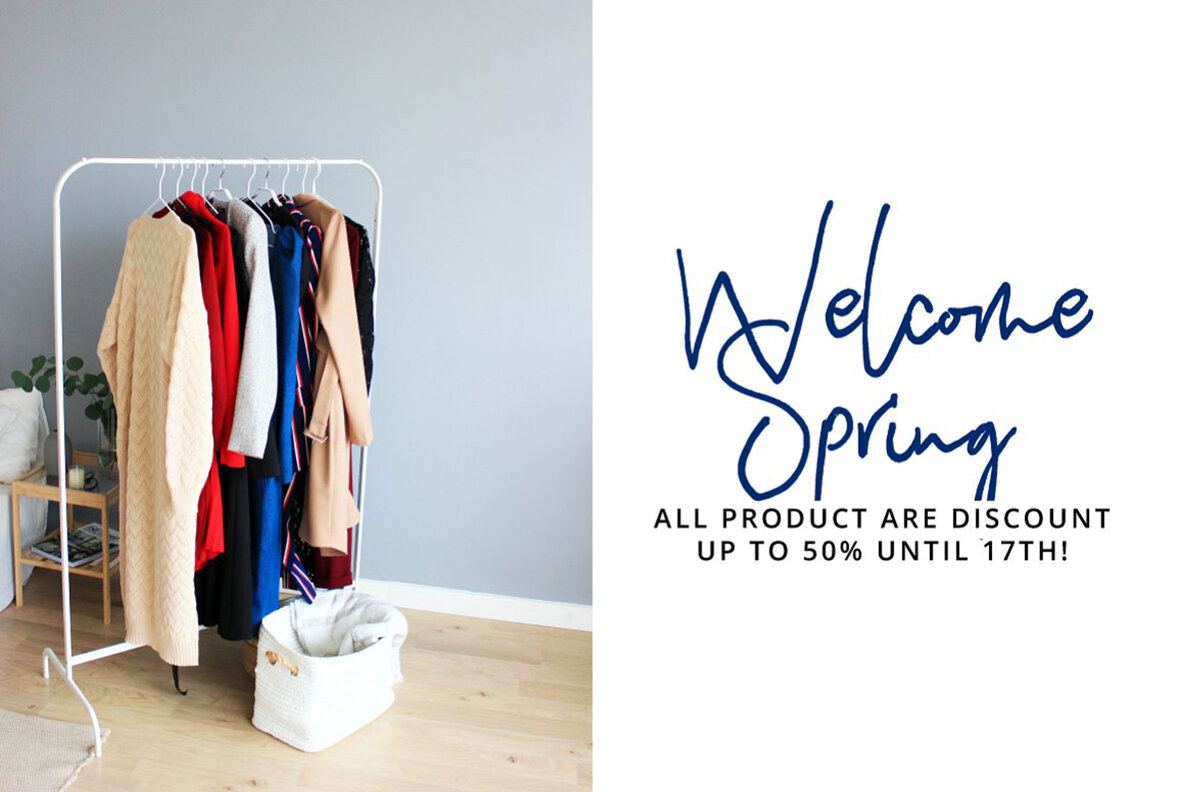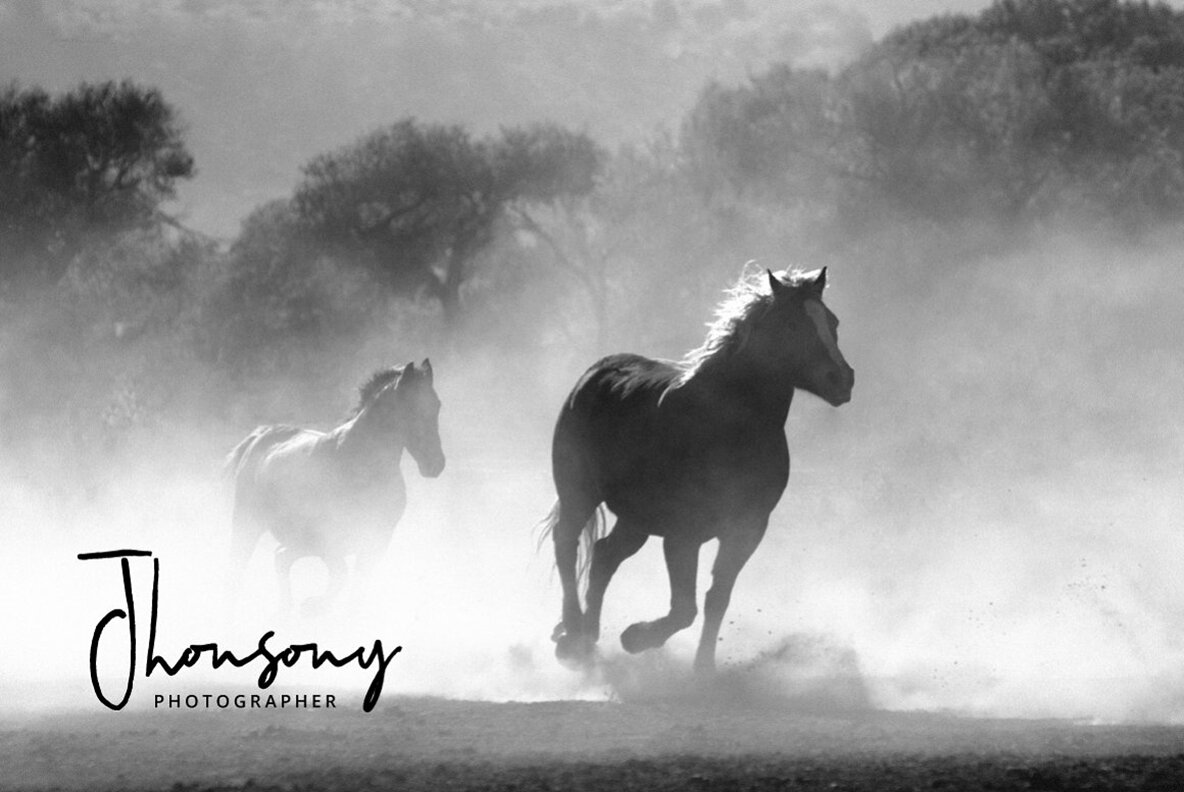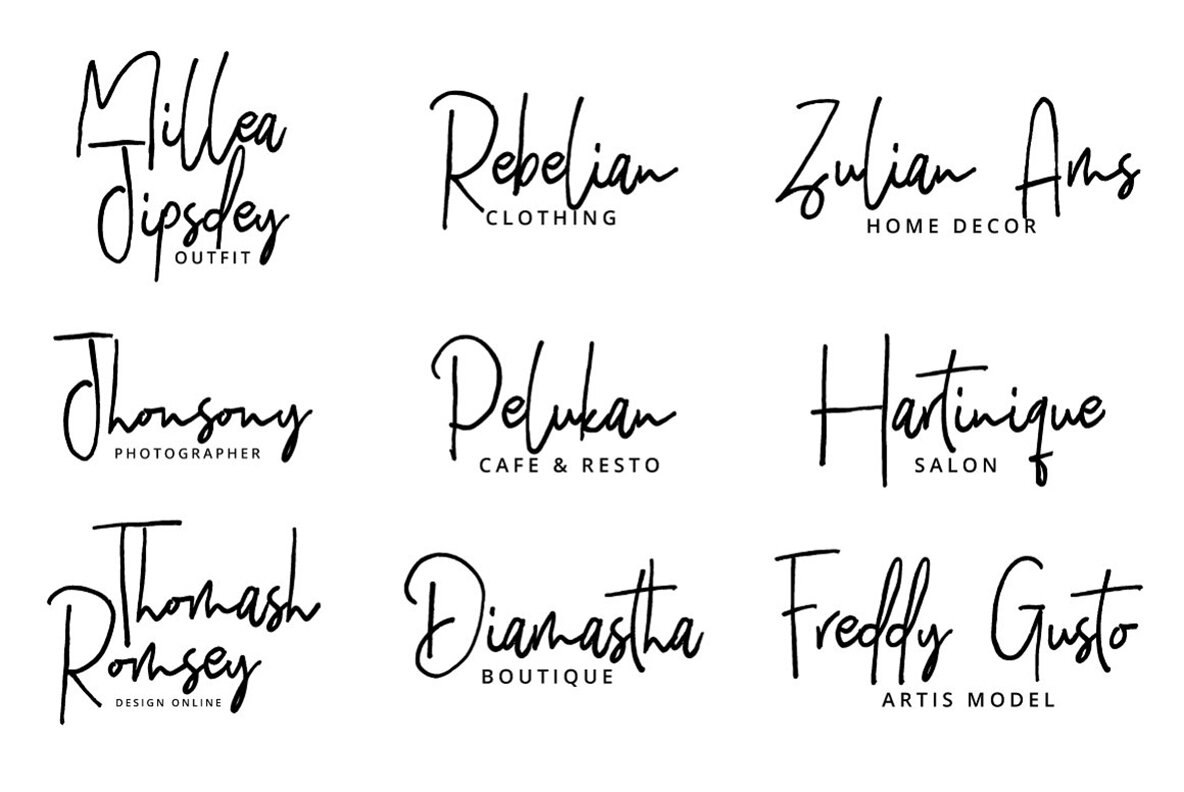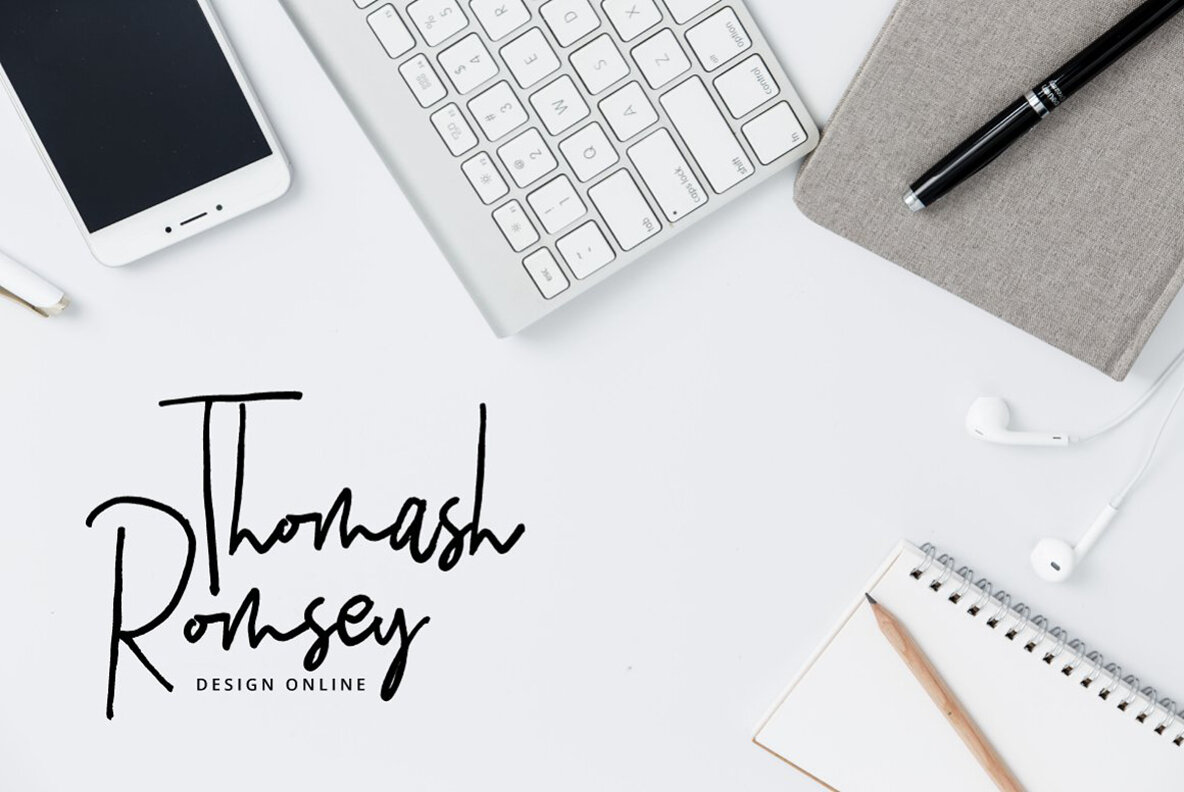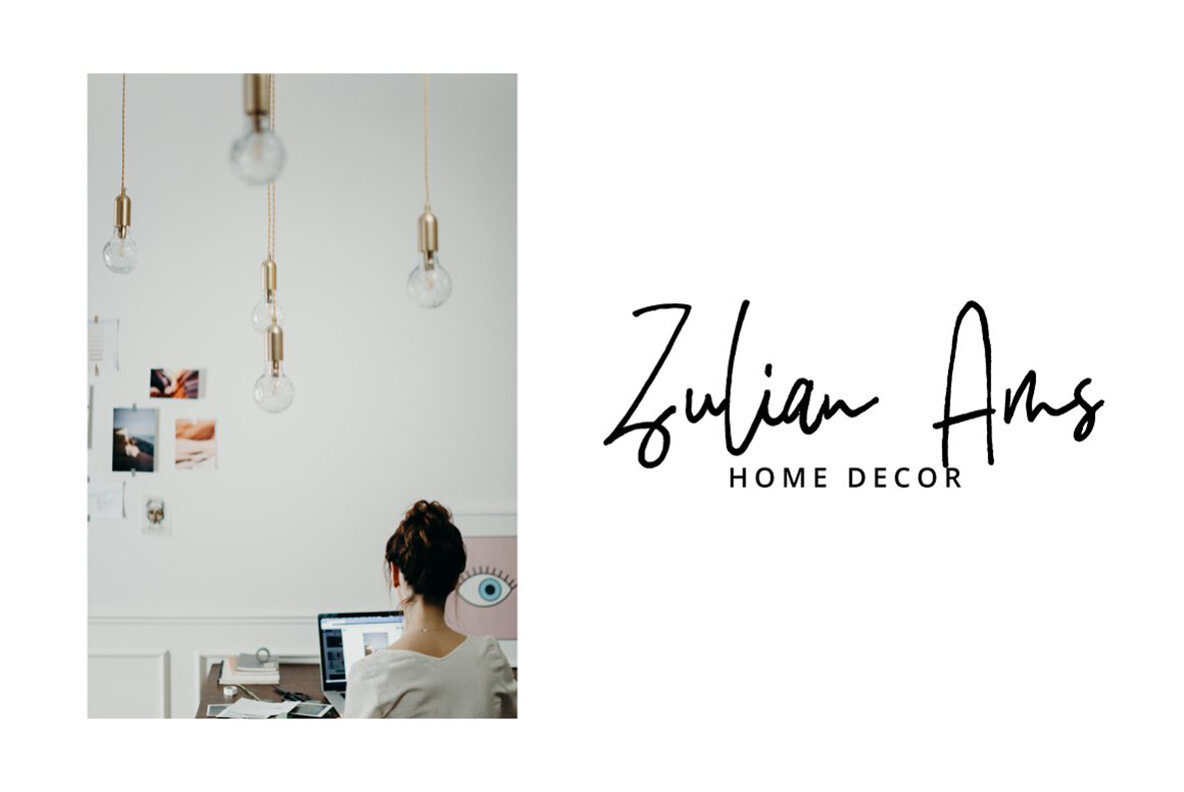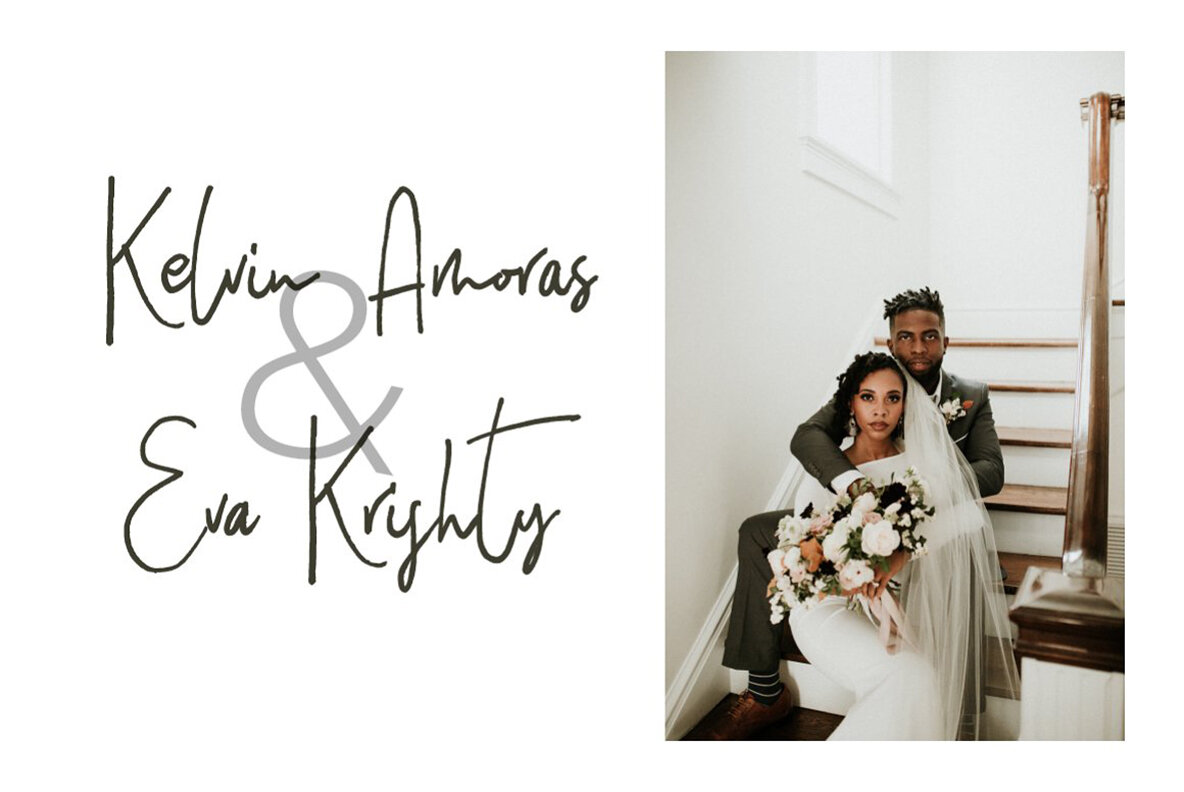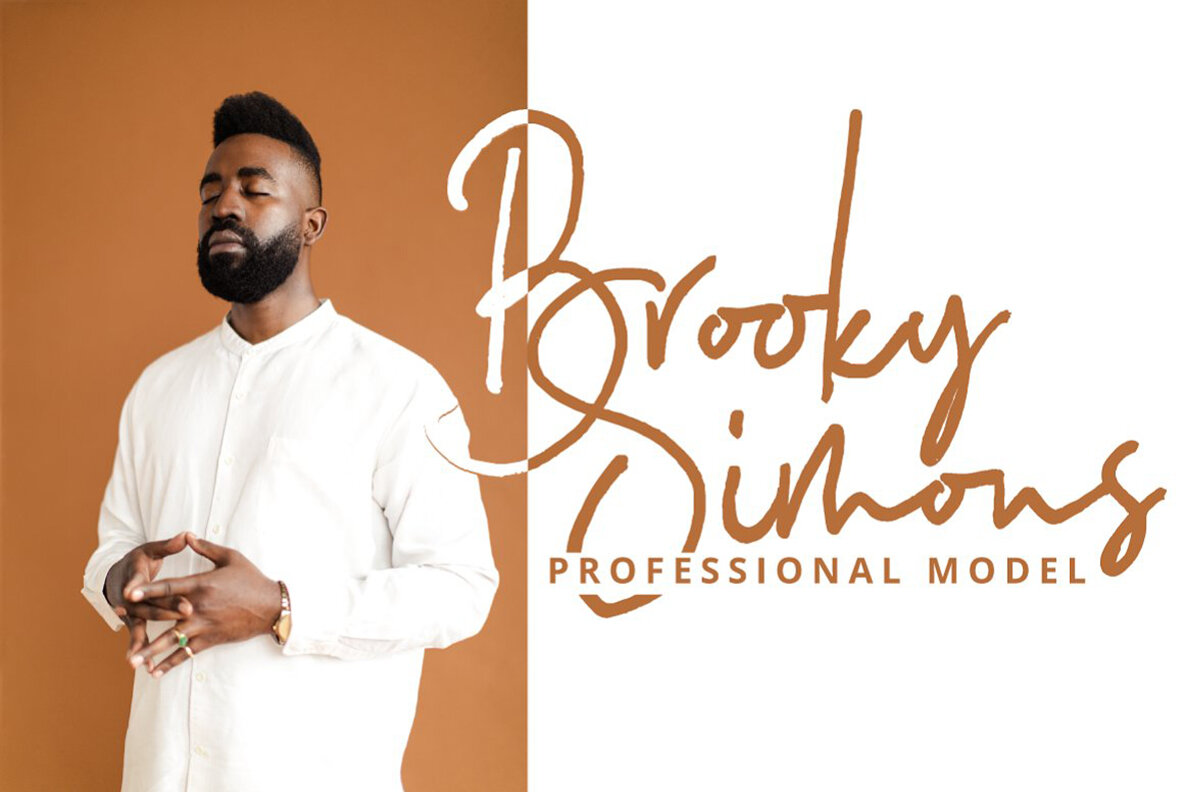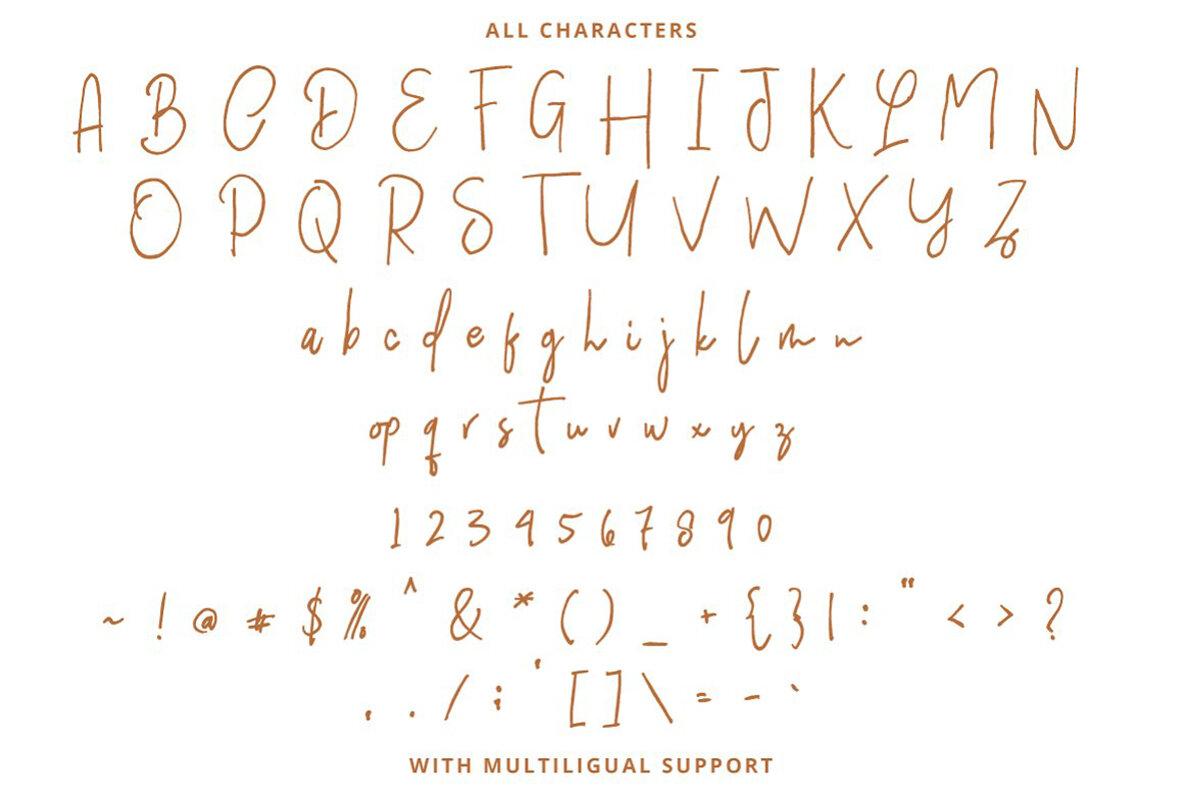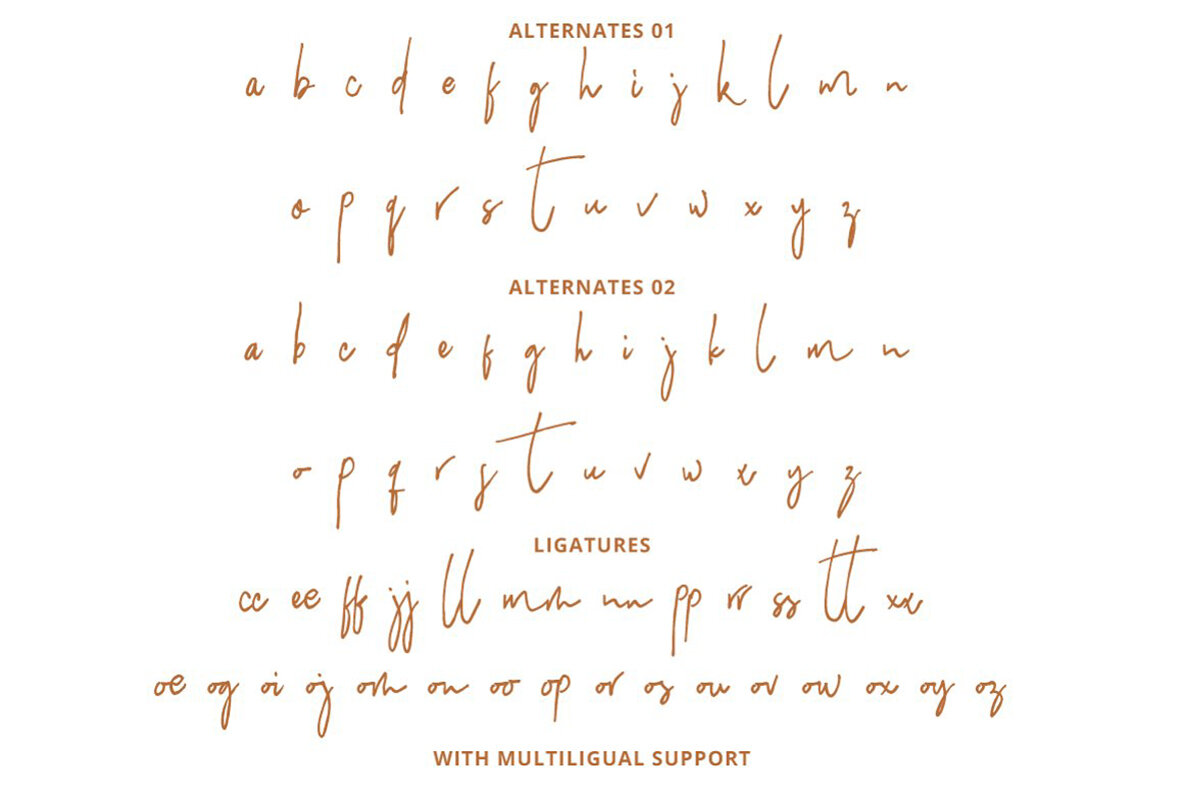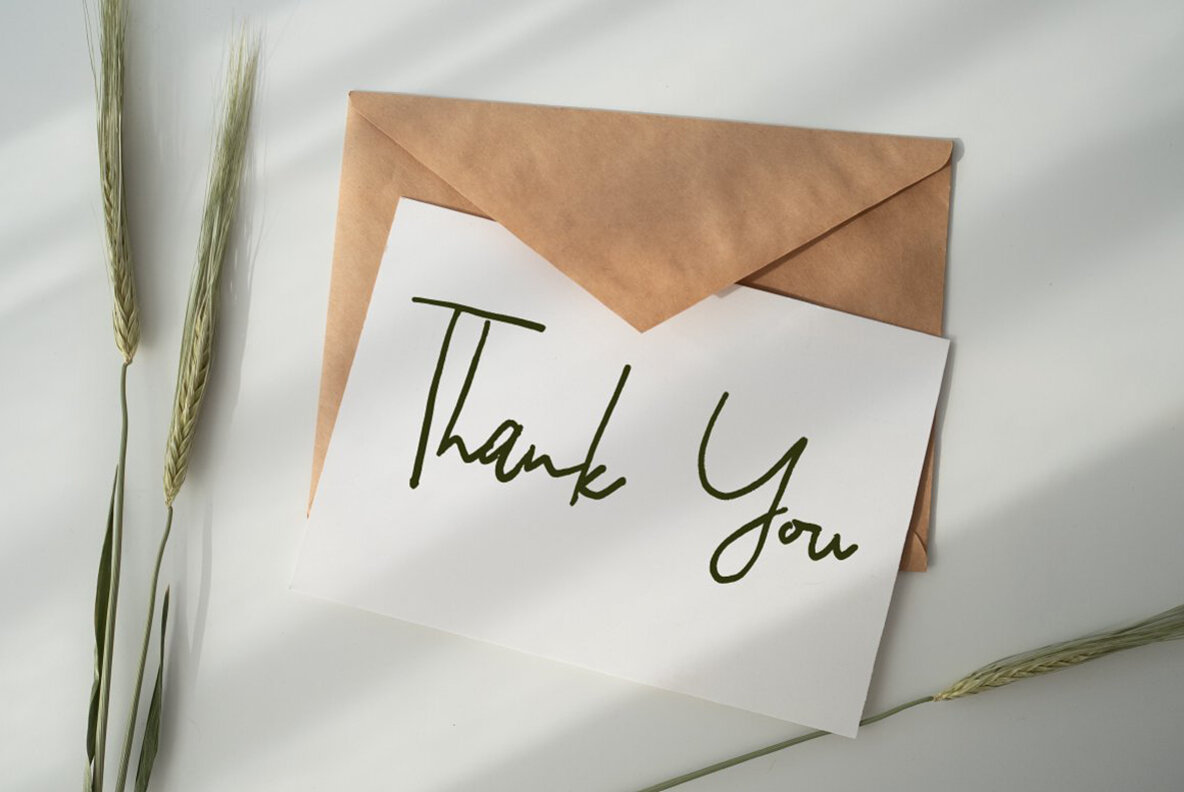
Hilmounte Signature Font
Hilmounte Signature
Hilmounte Signature is a distinctive handmade typeface featuring a signature style with decorative characters and a dancing baseline. It beautifully enhances invitations, greeting cards, branding materials, business cards, quotes, posters, and more. The font's OpenType features can be accessed through programs like Adobe Illustrator, Adobe InDesign, Adobe Photoshop, Corel Draw, and Microsoft Word. Hilmounte Signature's unique style adds a personal touch to a variety of design projects.Hilmounte Signature: Elegant Handcrafted Typeface
Features and Characteristics